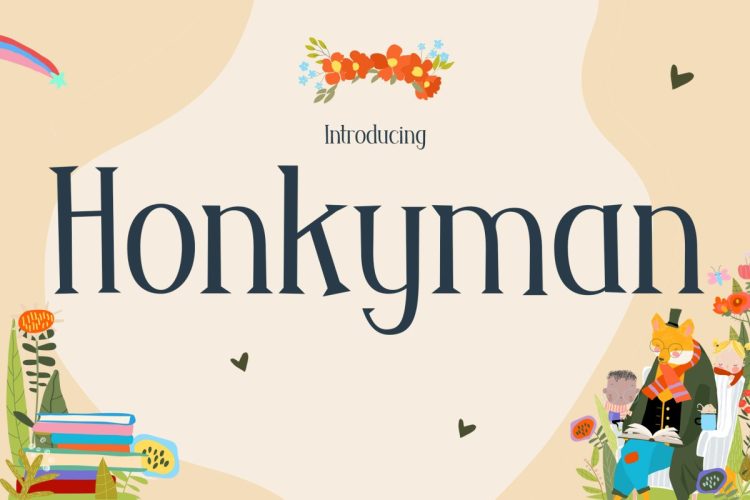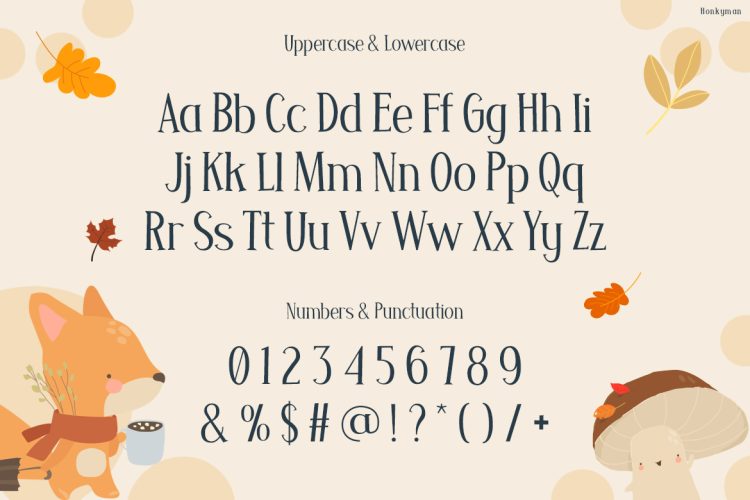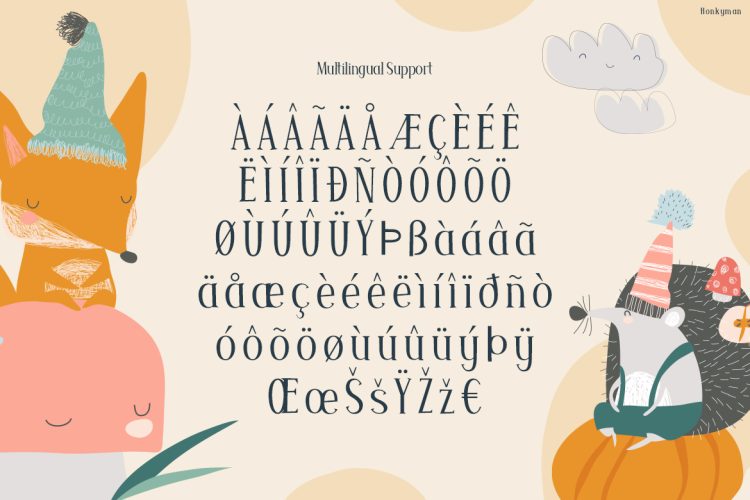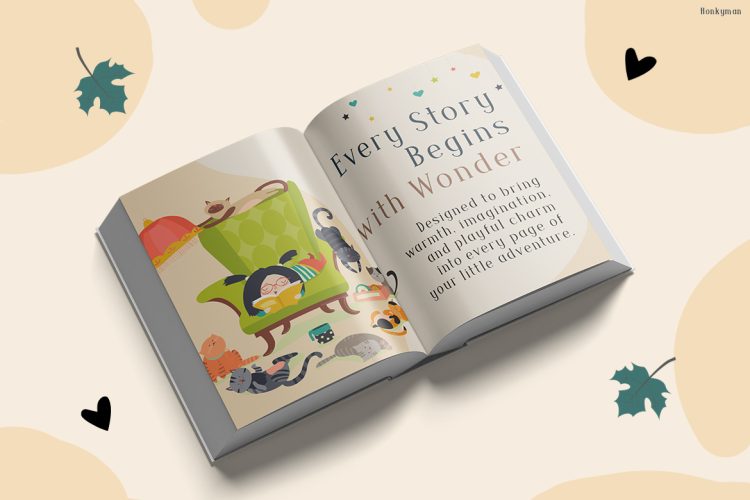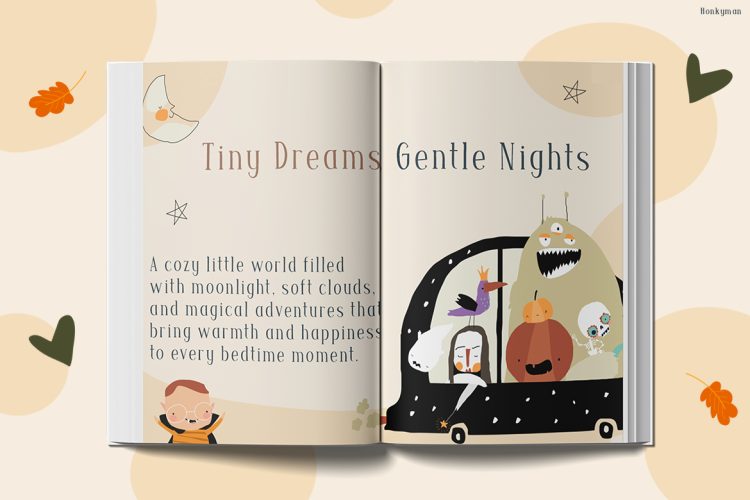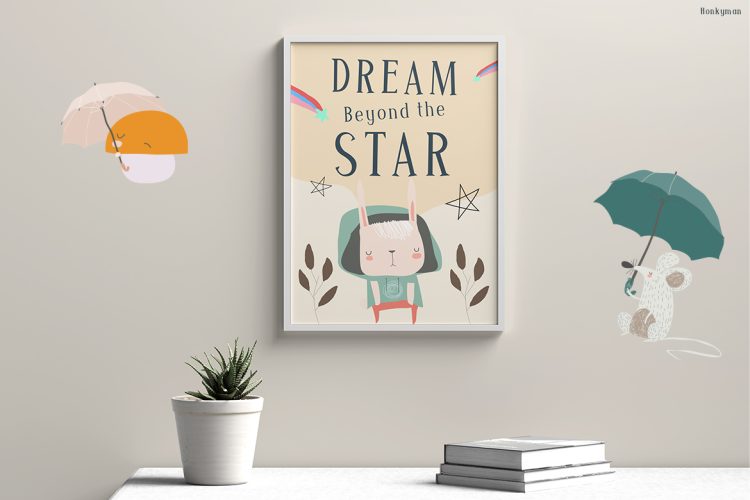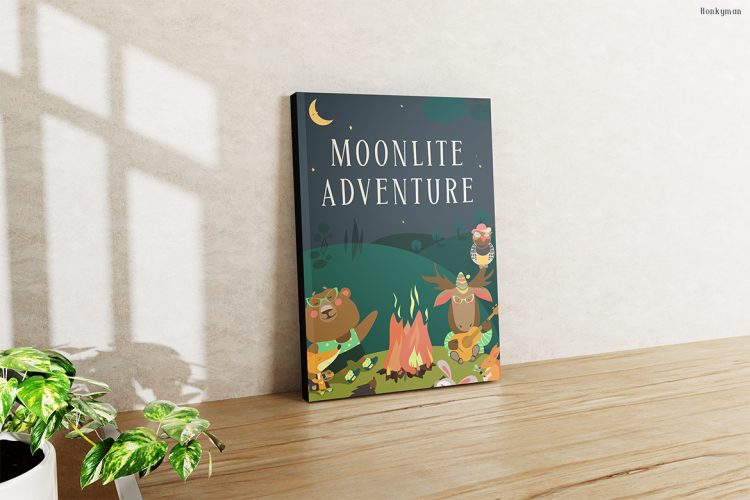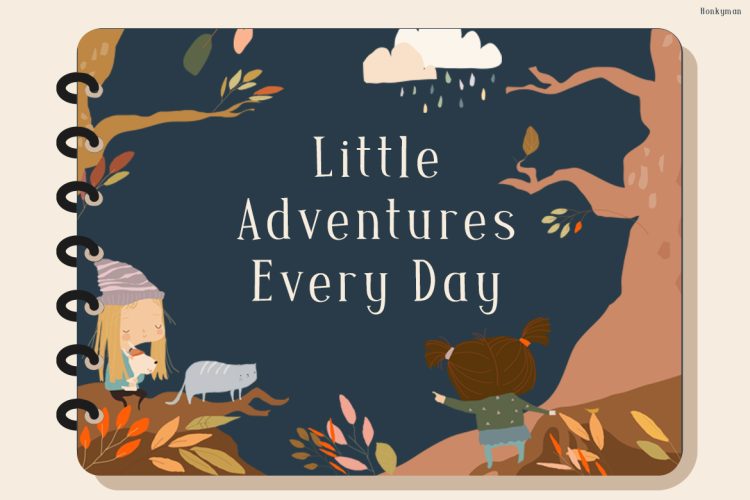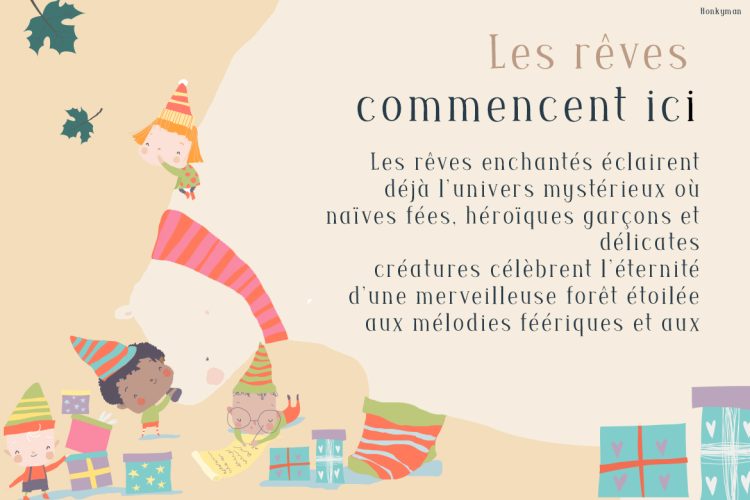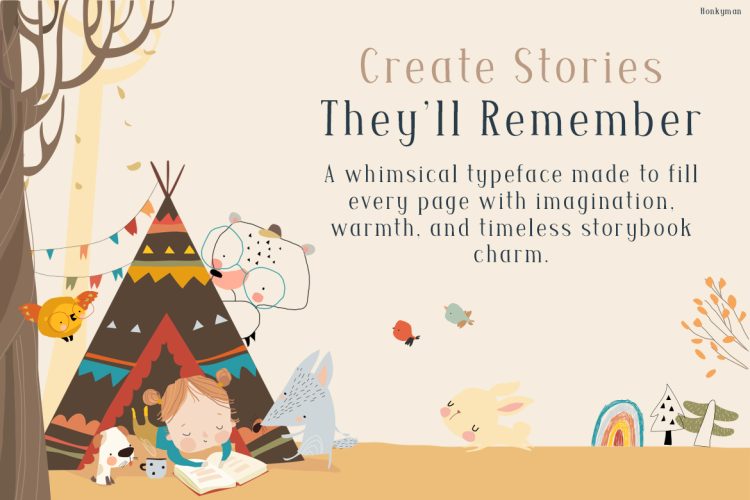
Kids Font Honkyman โ Cozy Storybook Serif Full of Magic
Kids Font Honkyman is a warm and playful display font that beautifully captures the charm of classic storybooks and whimsical childhood adventures. With its elegant serif style, soft curves, and imaginative character shapes, this font instantly creates a cozy and magical atmosphere. Moreover, the balanced typography feels both artistic and highly readable, so your titles stay eye-catching while still looking clean and friendly. In addition, the gentle vintage-inspired aesthetic gives every design a comforting and timeless feel. Because of its versatile appearance, Kids Font Honkyman works perfectly for both digital and print projects. Furthermore, the decorative serif details help your typography feel more expressive and visually memorable. At the same time, the playful styling keeps every layout looking fun, creative, and approachable. Even better, this font includes Multilingual Support for 67 Languages, so you can easily create engaging international designs without limitations.
Why Kids Font Honkyman Feels So Unique
Kids Font Honkyman combines whimsical fantasy vibes with elegant storybook typography. As a result, every word feels charming, expressive, and full of personality. Not only does the font add a magical touch to your projects, but it also improves the overall visual atmosphere with its decorative and artistic style. Additionally, the clean readability keeps your content functional across many creative layouts. Meanwhile, the soft serif structure gives your work a premium yet friendly appearance. Whether you are creating childrenโs books, classroom posters, or playful branding, this font helps every design feel more immersive and imaginative. Likewise, the cozy visual style creates a joyful mood that audiences instantly love. Therefore, your projects can feel warmer, more engaging, and much more memorable.
- Childrenโs book covers
- Storytelling posters
- Kids branding and packaging
- Classroom decorations
- Toy packaging
- Educational materials
- Creative invitations
- Social media graphics
- Merchandise and apparel
- Fantasy-themed projects
Bring More Wonder Into Every Design